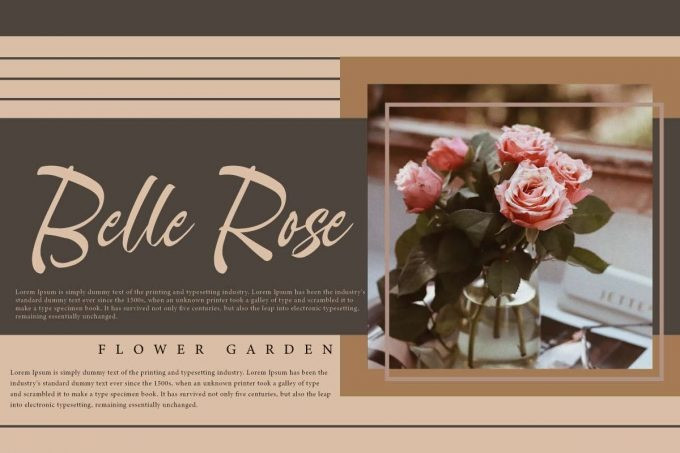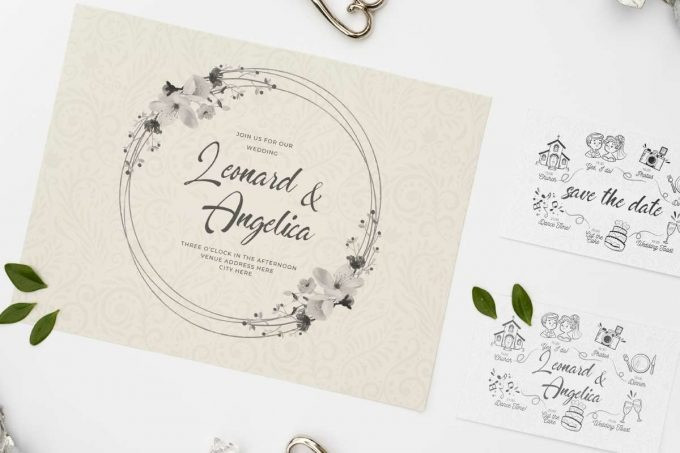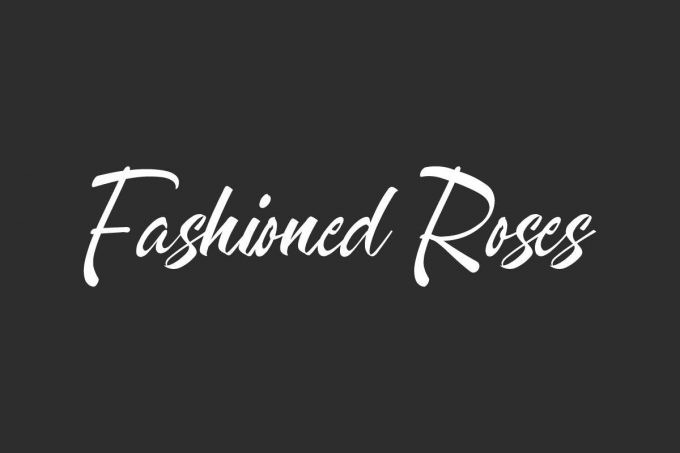
Fashioned Font
Fashioned Roses Font is a stunning calligraphy handwritten font created by Vintype Studio. This font has thick and thin lines that are balanced and neatly arranged so it’s easy to read and adds beauty to your designs. The font will be perfect for many industries, such as café, event or wedding organizer, fashion, florist, interior design, photography, printing, restaurant, and more!
Fashioned Roses Font includes full set of Uppercase and Lowercase Basic Characters, Numerals and Punctuation, and Ligature to make your designs perfect and standout! Use this font to beautify your designs, including : brand logo, business card, jewelry box, label, product packaging, quote, screen printing, signage, stationery, title, etc.